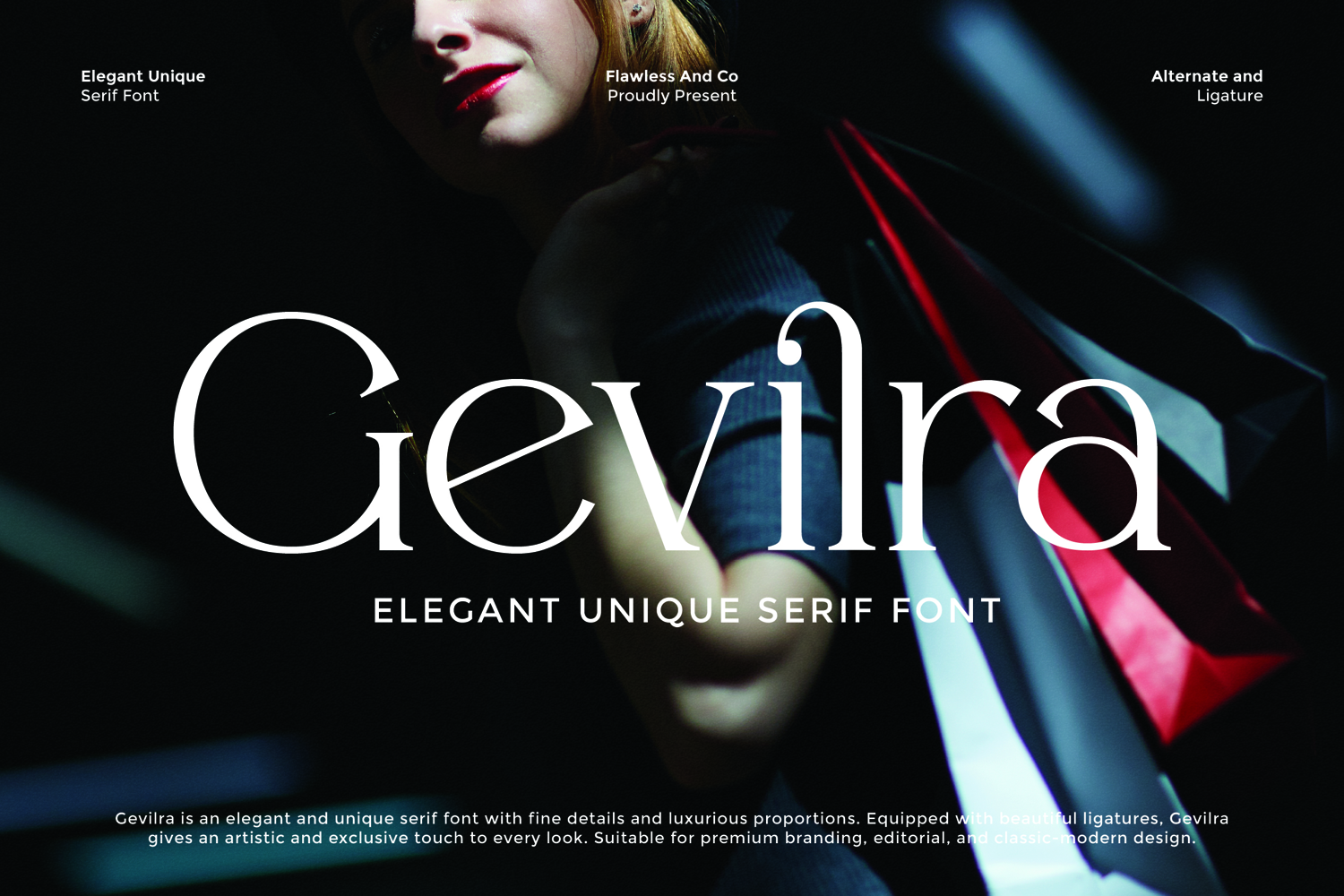
Gevilra
GELVIRA
GEVILRA - Is a Elegant Serif Font
Gevilra is an elegant and unique serif font with fine curves and a refined aesthetic. Featuring graceful ligatures and stylish alternates, Gevilra brings a sophisticated and contemporary charm to any project. Its luxurious makes it a perfect choice for high-end branding, editorial layouts, fashion, and timeless design concepts.
• Alternates & Ligatures
Who Should Use Gevilra?
Gevilra is designed for creatives, designers, and brand strategists who seek a font that blends elegance. Whether you're building a luxury brand, curating editorial content, or crafting stylish packaging, Gevilra offers the visual sophistication and modern flair that elevate your design. This font is ideal for those who want to communicate class, confidence, and timeless beauty in their visual language.
A Must-Have Font for Brand Logo, Beauty, Fashion, and Wedding Creators and Designers
Gevilra is more than just a typeface — it’s a creative asset crafted for designers who work in the worlds of elegance, luxury, and romance. With its refined curves and high-end aesthetic, Gevilra becomes the perfect tool for branding professionals, fashion stylists, wedding creatives, and beauty entrepreneurs who need a font that speaks grace, femininity, and charm. If your work demands a delicate balance between bold presence and timeless style, Gevilra is the font you’ll keep coming back to.
Why Choose Gevilra for Brand Logo, Beauty, Fashion, and Wedding Projects?
Gevilra stands out with its graceful elegance and modern sophistication, making it the ideal choice for projects that require a touch of refinement and charm. Its luxurious letterforms are designed to elevate brand presence — perfect for beauty labels, high-end fashion lines, or elegant wedding invitations. Whether you're creating a timeless logo, a chic packaging design, or romantic editorial layouts, Gevilra delivers a visual language that’s stylish, feminine, and impactful. This font doesn’t just decorate — it defines identity with class and confidence.